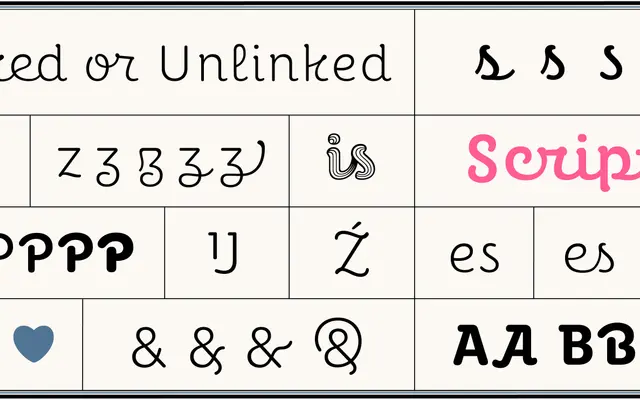
Perec Scripte
A vertical script typeface by Alejandro Lo Celso offered in unlinked, linked and decorative variants across six weights, designed as part of a tribute superfamily to writer Georges Perec.
The family splits into three distinct styles: Perec Scripte 1 (unlinked) for greater legibility at smaller sizes, Perec Scripte 2 (linked) for a more flowing connected hand, and Perec Scripte Deco, which adds three hand-drawn stripes throughout the alphabet for titles, signs and logos. Each style carries an extensive OpenType feature set including contextual alternates, swashes, ligatures, multiple numeral sets and Pinyin Latin support, with glyph counts reaching over 2,000 per font in the linked variant. The family sits within the broader Perec superfamily alongside Perec and Perec Ludique, all intended for combined use in expression-rich editorial layouts.
A vertical script typeface with no slant, placing it firmly in the upright cursive tradition. The family splits into unlinked and linked styles alongside a decorative variant, all sharing script letterform characteristics.